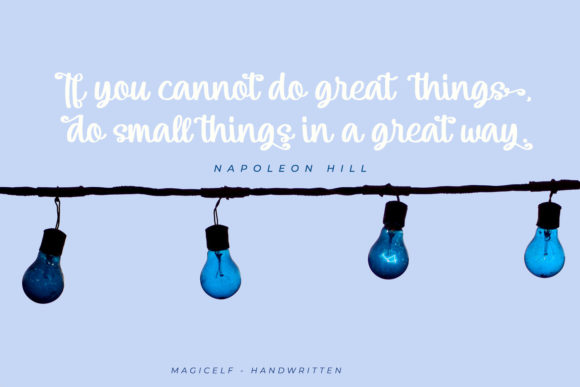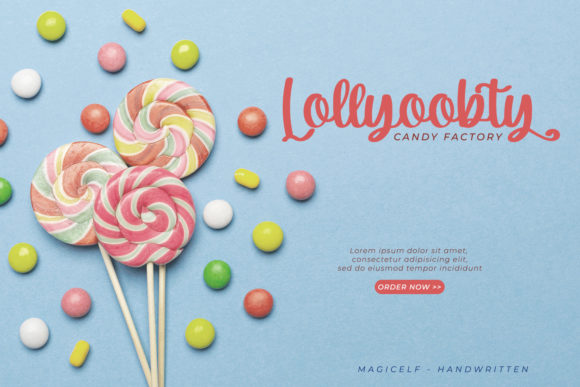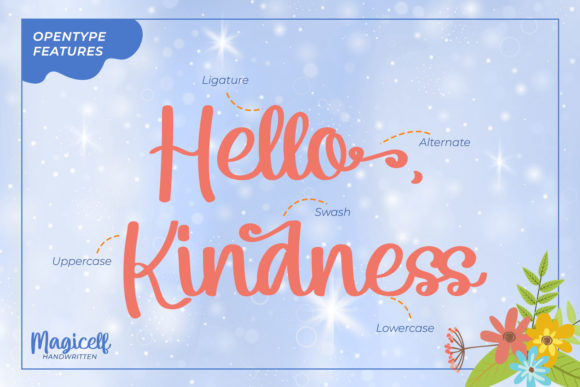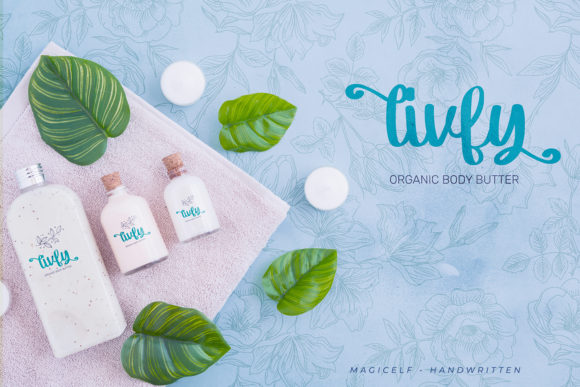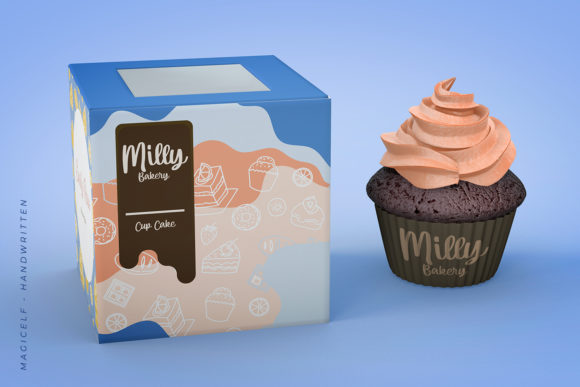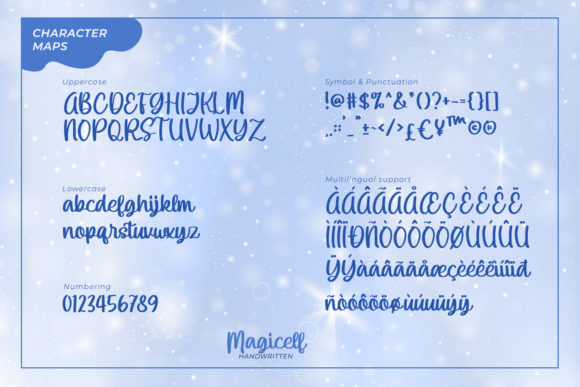
Introduction to Magicelf Font Font
Fonts play a crucial role in design, and the Magicelf Font font is a typeface that brings both character and versatility to any project. Whether you’re working on a branding project, a website, or a print design, the Magicelf Font font offers a unique style that can elevate your work.
Magicelf is a bold and elegant handwritten font.
Made for any professional project branding It is the best for logos, branding and quotes.
Key Features of Magicelf Font Font
Why Choose Magicelf Font Font?
The Magicelf Font font is more than just a typeface – it’s a design tool that helps you communicate your message with style and clarity. Its unique character set and versatile design make it suitable for a wide range of applications, from elegant invitations to bold headlines.
With its carefully crafted letterforms and balanced proportions, the Magicelf Font font ensures readability and visual appeal across all mediums.
What makes Magicelf Font font special?
The Magicelf Font font stands out with its unique design, exceptional readability, and versatility across various design applications.